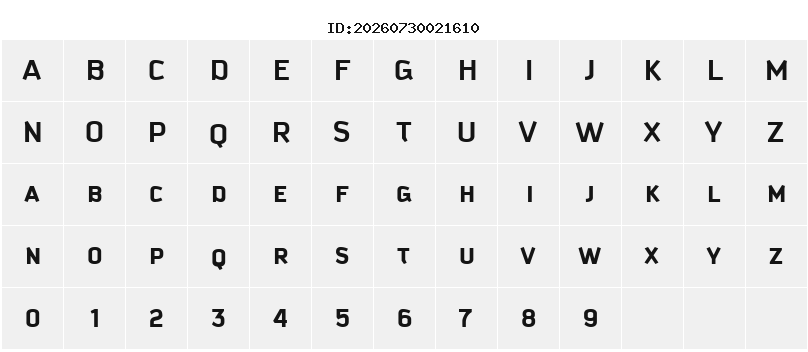
• Font Name: Kautiva Caps
• Full Font Name: Kautiva Caps Bold
Kautiva Caps.ttf is a modern, elegant sans-serif font designed for ultimate readability and visual harmony. Perfect for branding, headlines, web design, and print materials.